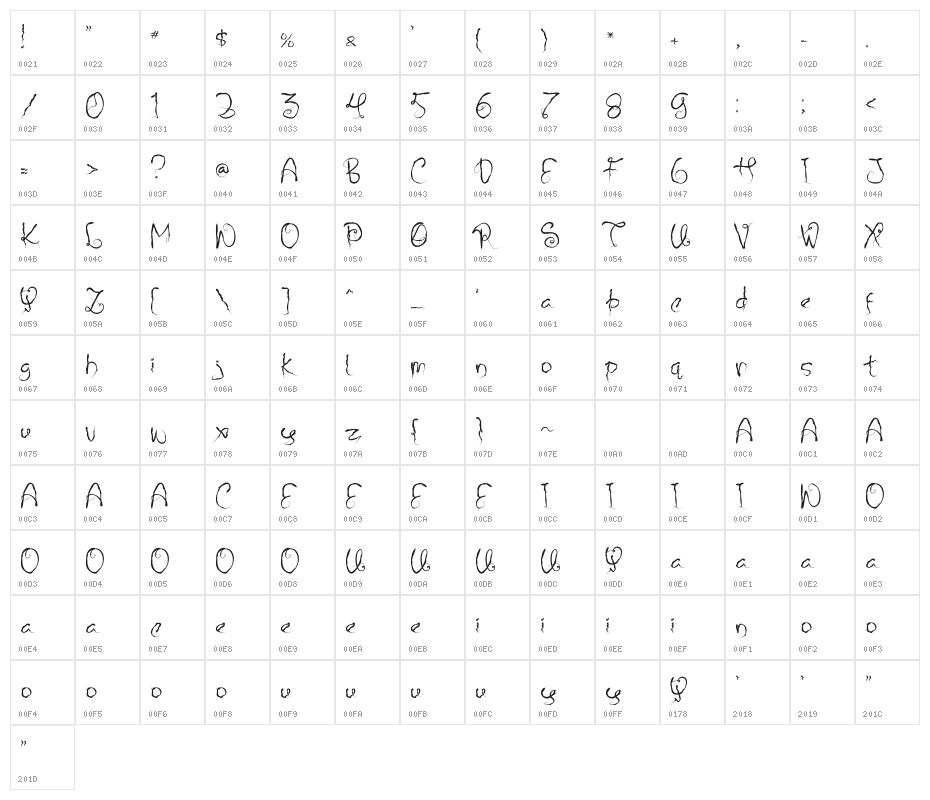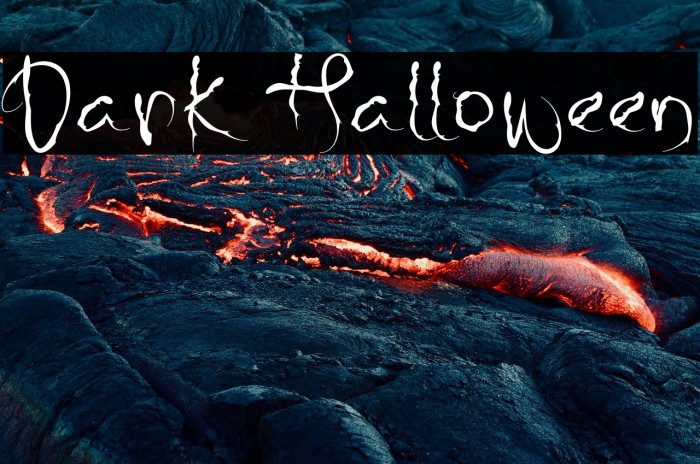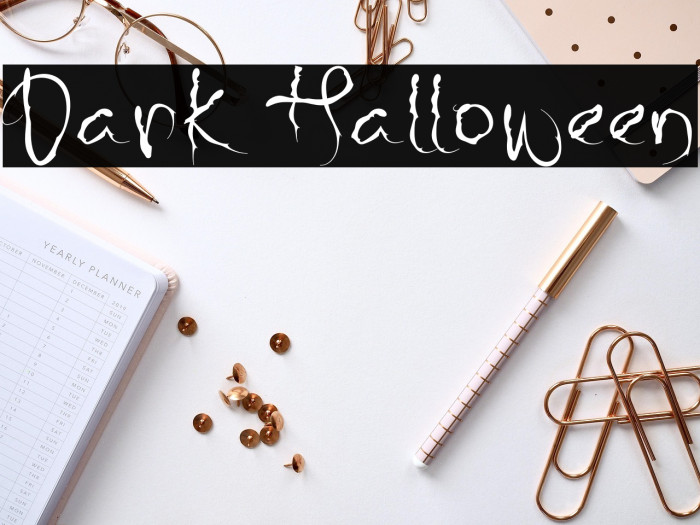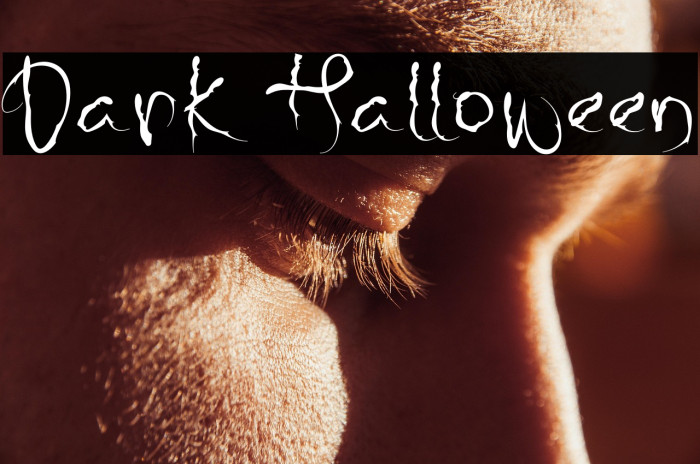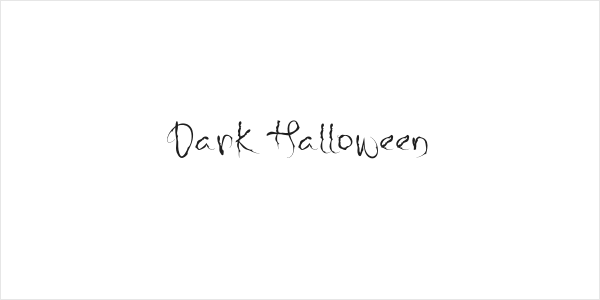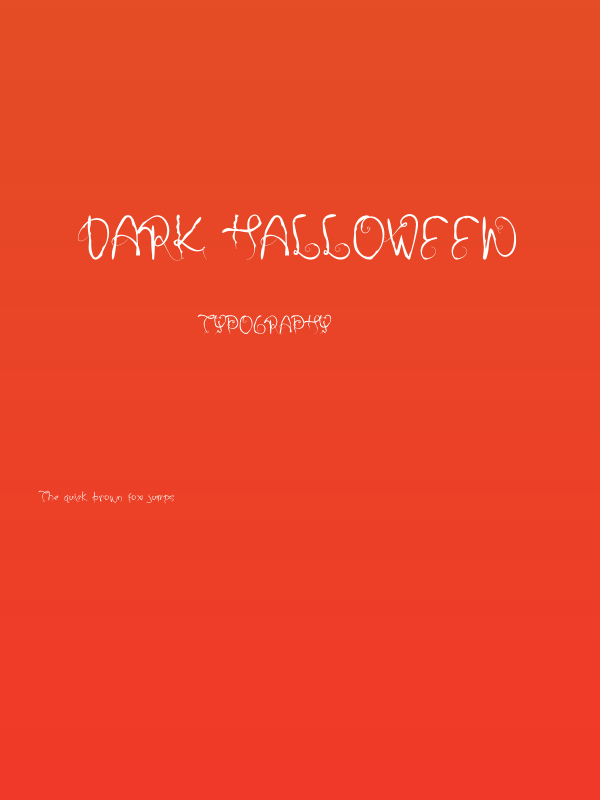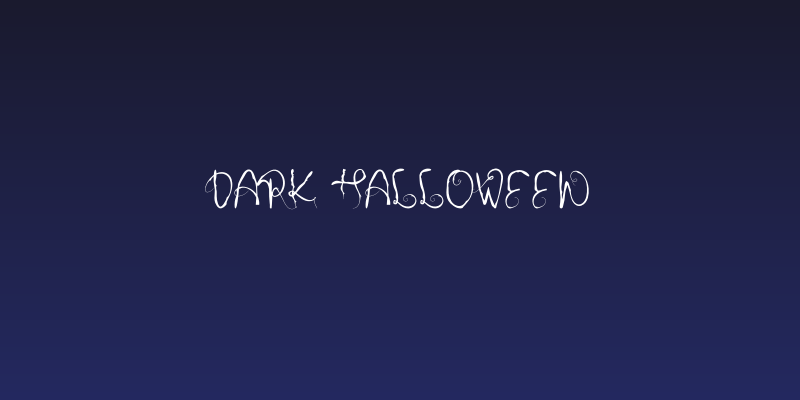
Dark Halloween Font
Dark Halloween Description
This font exudes a spooky and whimsical charm, perfect for Halloween-themed projects. The letters are adorned with intricate, vine-like extensions and irregular strokes that give it a haunted, eerie feel. The uppercase and lowercase characters maintain a consistent style, with swirling embellishments that add a sense of movement and mystery. The numbers and special characters follow suit, incorporating the same decorative elements. This font is ideal for creating eye-catching designs that require a touch of the macabre or fantastical.
| Proposed Projects | Ideal for Halloween invitations, horror movie posters, themed party decorations, and spooky greeting cards. |